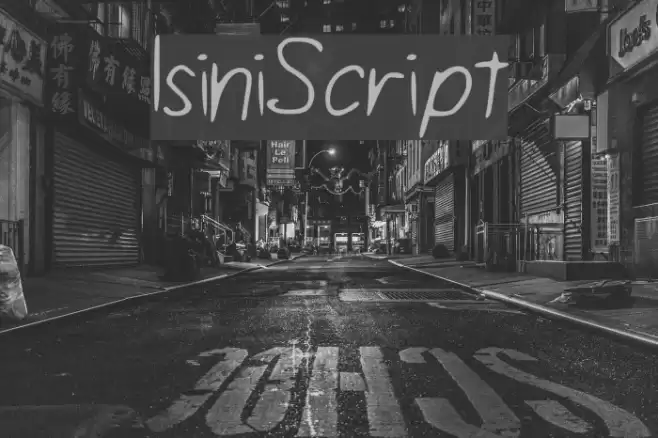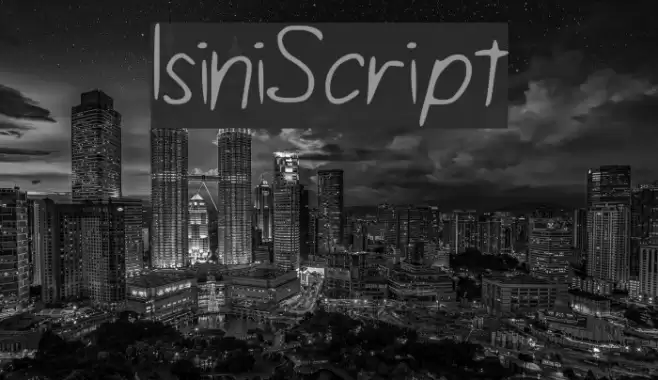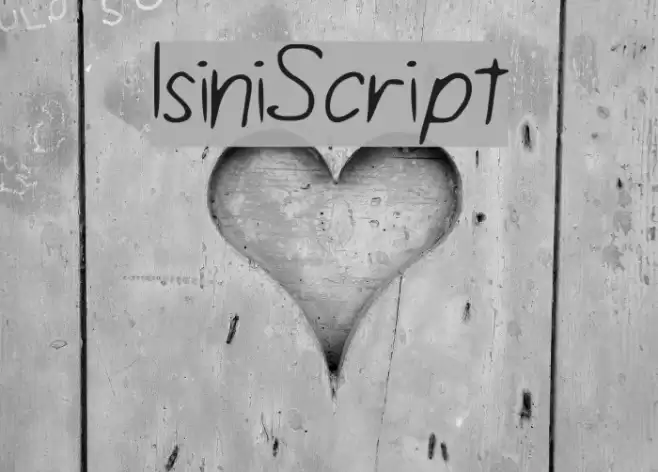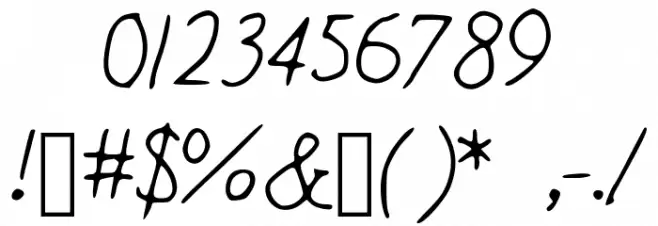
IsiniScript Font
IsiniScript Description
This font features a playful and casual handwritten style, characterized by its smooth, flowing lines and slightly irregular shapes. The uppercase letters are bold and slightly wider, while the lowercase letters maintain a consistent fluidity, giving the font a relaxed and approachable feel. The numerals are clear and easy to read, matching the overall informal aesthetic. Special characters are well-integrated, maintaining the same casual style. This font's design is perfect for projects that require a personal touch, such as invitations, greeting cards, or informal branding. Its legibility and unique style make it versatile for various creative applications.
A playful, casual handwritten font with smooth, flowing lines from Uncategorized fonts.
- Proposed Projects: Ideal for invitations, greeting cards, informal branding, and creative projects.
- Overall Style: Casual, Playful
- Use Case: Headlines, Informal text, Creative projects